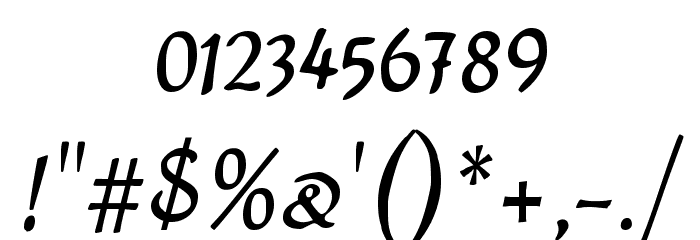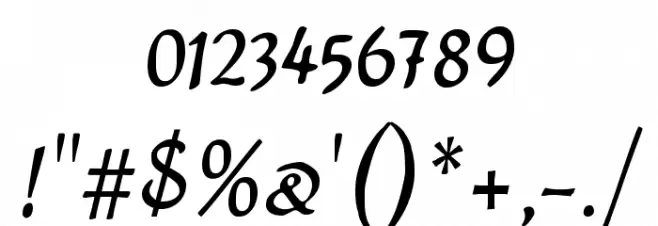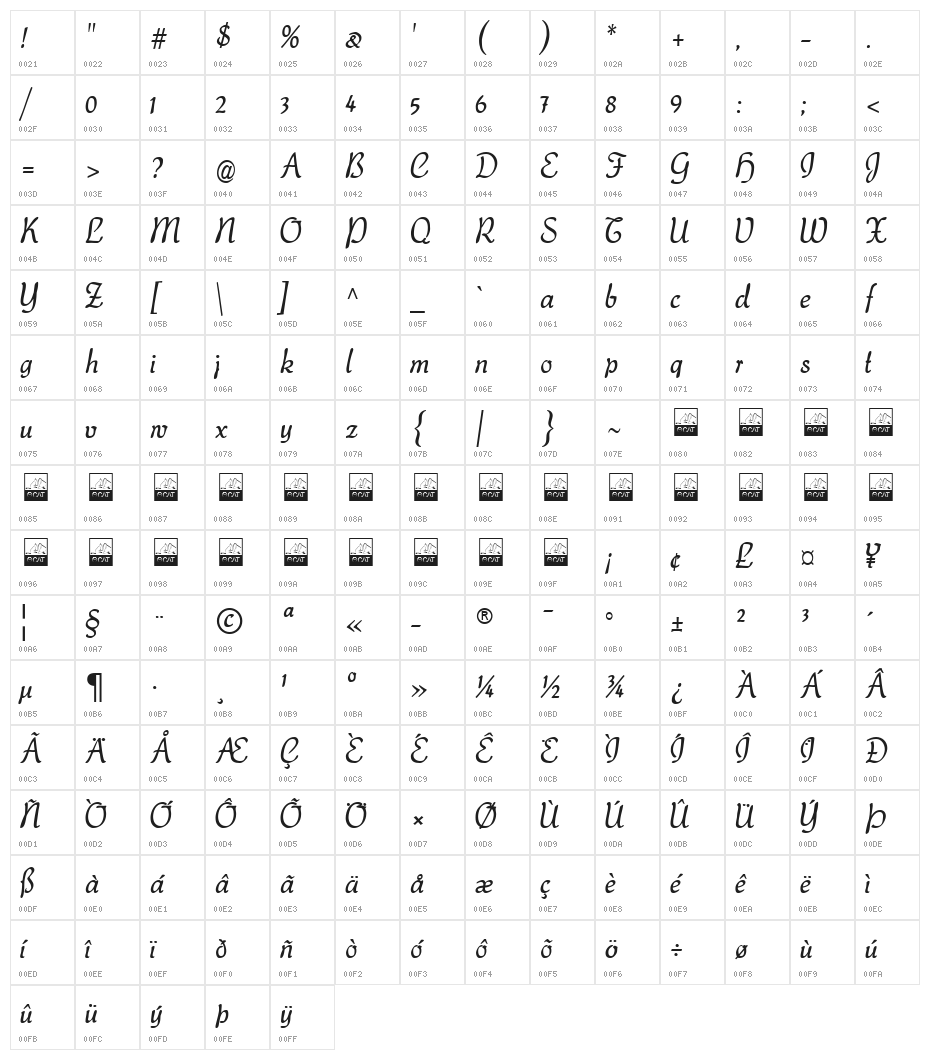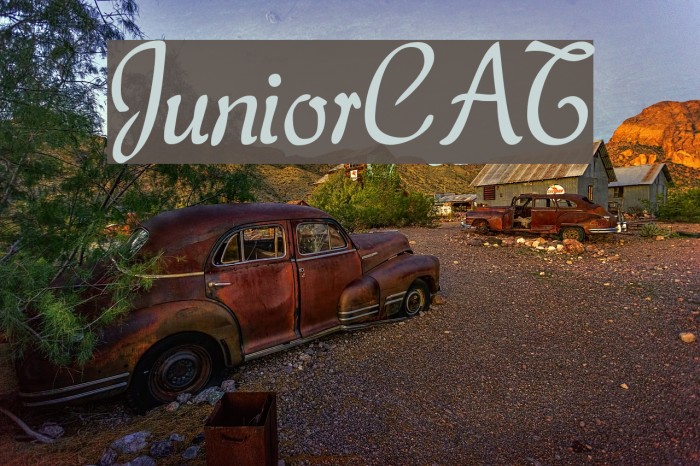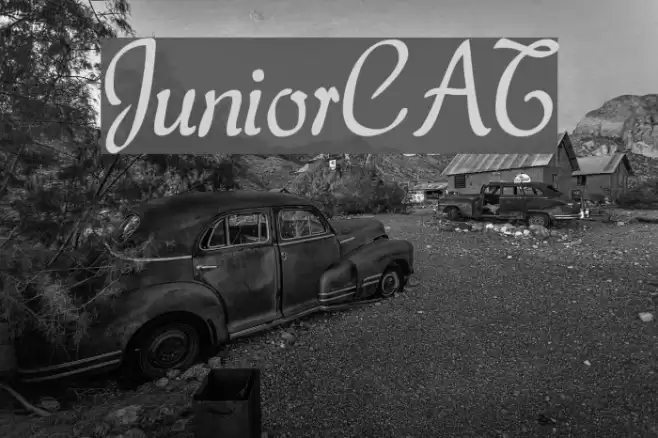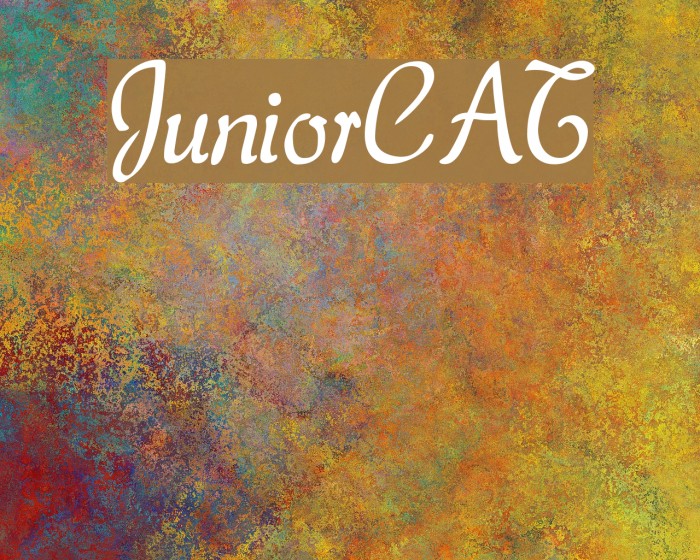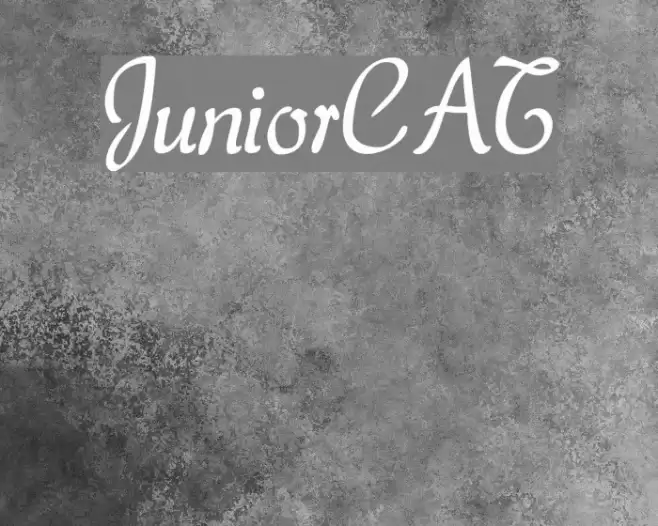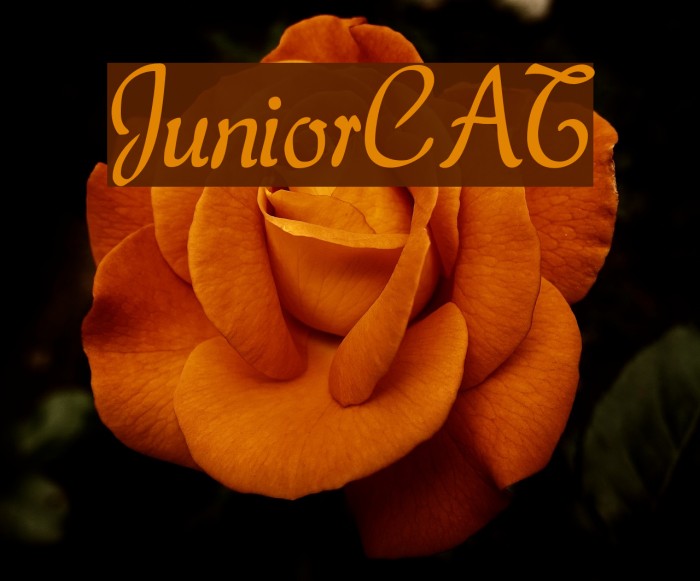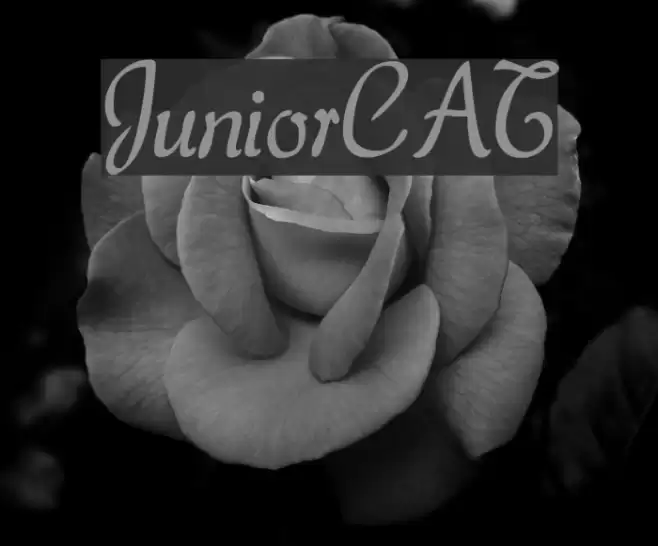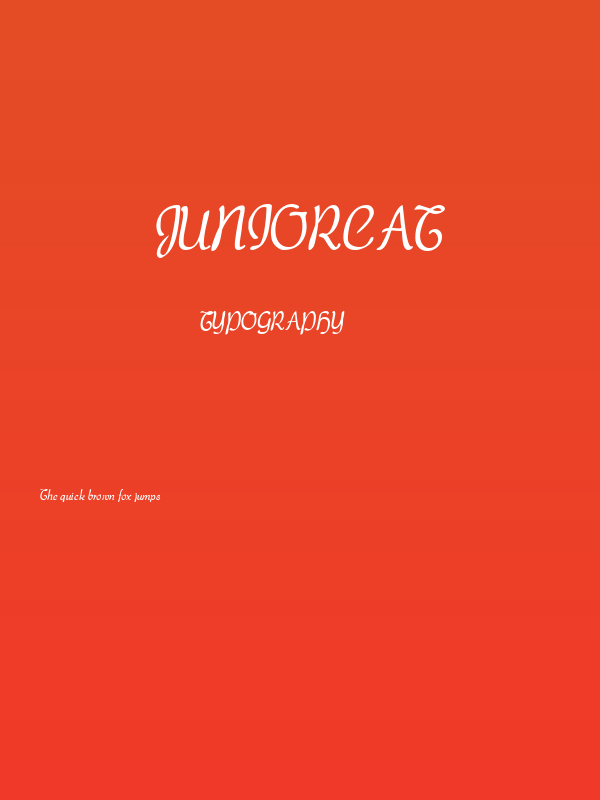
JuniorCAT Font
JuniorCAT Description
This font features a classic, elegant script style with smooth, flowing lines and a slight slant, giving it a handwritten appearance. The uppercase letters are ornate and slightly larger than the lowercase, which are more subdued but maintain the same fluidity. The numerals are consistent with the overall style, offering a cohesive look. Special characters are well-integrated, maintaining the script's graceful curves. This font is ideal for projects requiring a touch of sophistication and elegance, such as invitations, branding, or decorative headings.
| Use Case | Headlines, Invitations, Branding |
| Proposed Projects | Ideal for wedding invitations, elegant branding, decorative headings, and sophisticated design projects. |